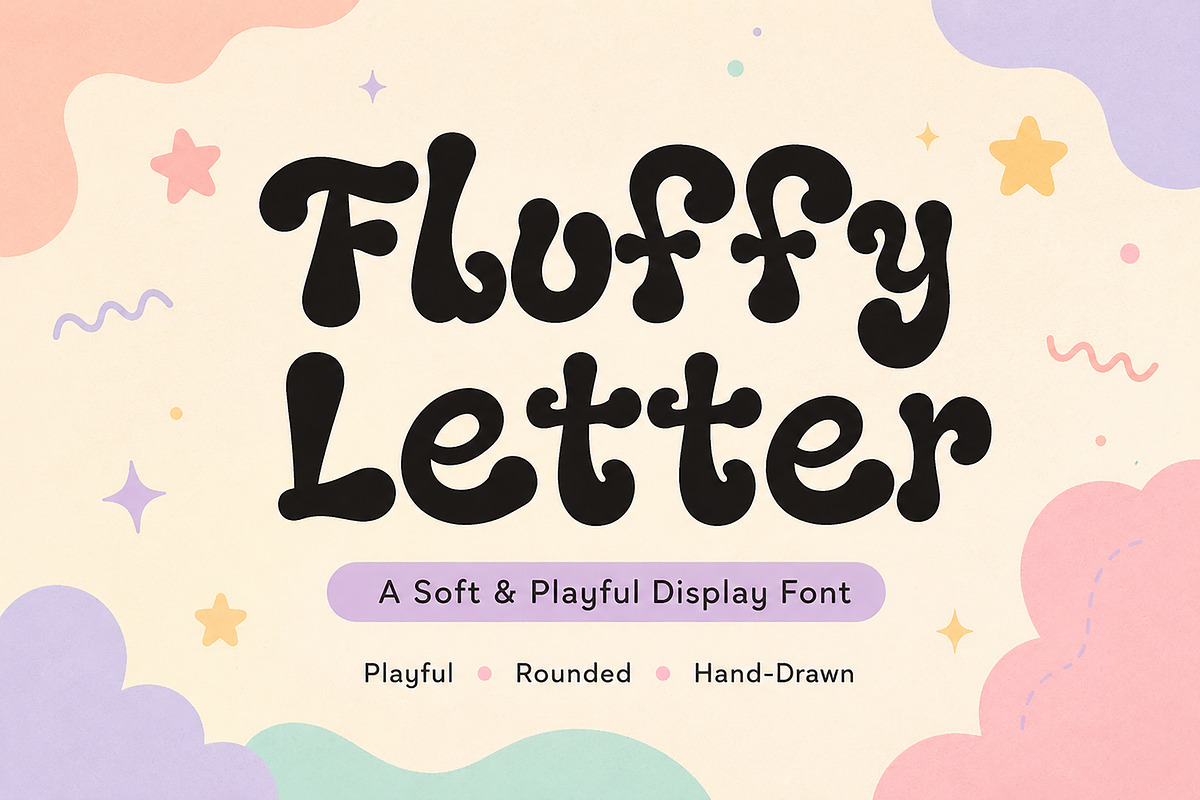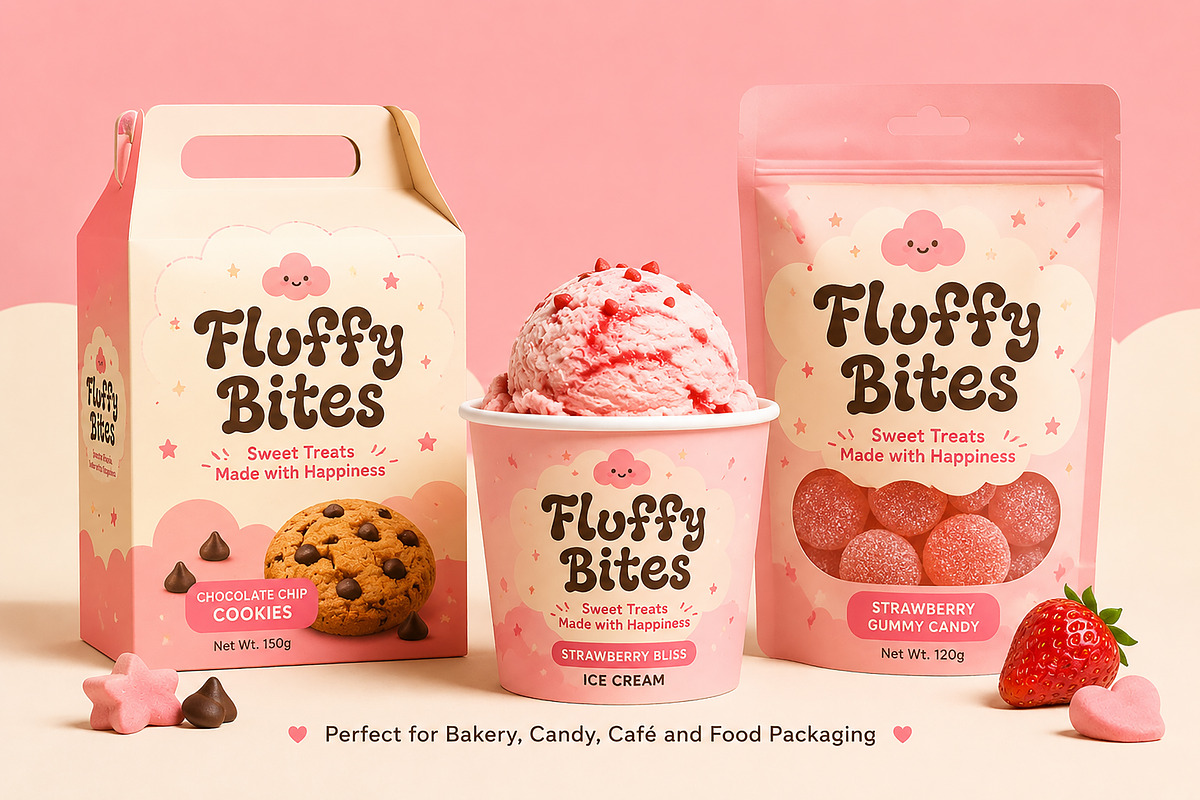
Fluffy Letter
Fluffy Letter is a cheerful, rounded display font designed to bring warmth, fun, and personality to every project. With its soft curves and playful letterforms, this font is perfect for creating eye-catching designs that feel friendly, creative, and full of charm.
Whether you're designing branding for kids, sweet packaging, playful posters, social media graphics, or handmade product labels, Fluffy Letter adds a joyful and memorable touch to your typography. Its bold, bubbly style makes headlines stand out while remaining easy to read.
Perfect for designers, crafters, small businesses, and content creators who want to create fun and engaging visual identities.
Kids Branding
Toy Packaging
Bakery & Café Branding
Candy & Snack Packaging
Ice Cream Labels
Children's Books
Posters
Greeting Cards
Party Invitations
Stickers
T-Shirt Designs
Tote Bags
Mugs
YouTube Thumbnails
School Projects
DIY Crafts
Cricut & Silhouette Projects
Uppercase Letters
Lowercase Letters
Soft Rounded Letterforms
Fun & Playful Style
Bold Display Font
Easy to Read
Kid-Friendly Personality
Perfect for Large Headlines
Multilingual Characters
Ideal For
Create eye-catching designs for:
Sweet Brands
Children's Products
Party Supplies
Merchandising
Event Graphics
Social Media Content
Branding Projects
Printable Designs
Craft Projects
Bring your creative ideas to life with Fluffy Letter—a playful display font made to spread happiness through bold, charming typography.